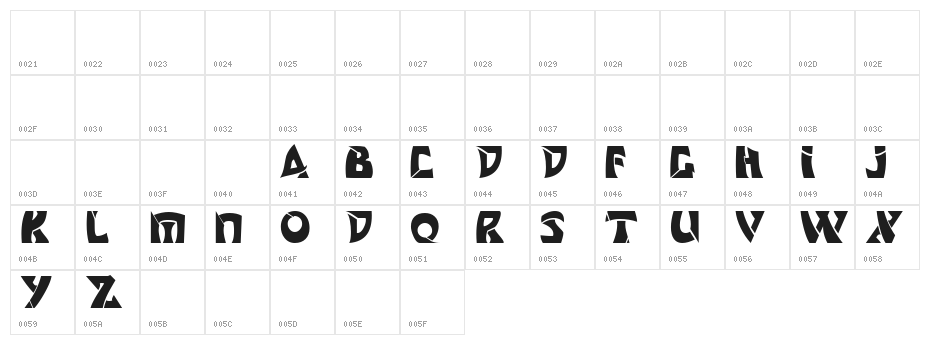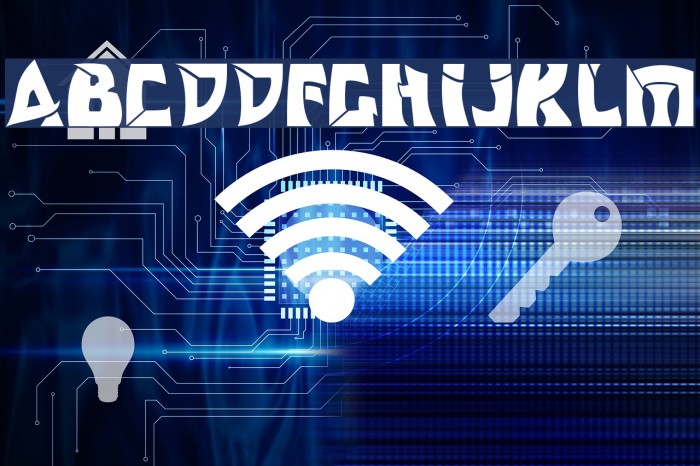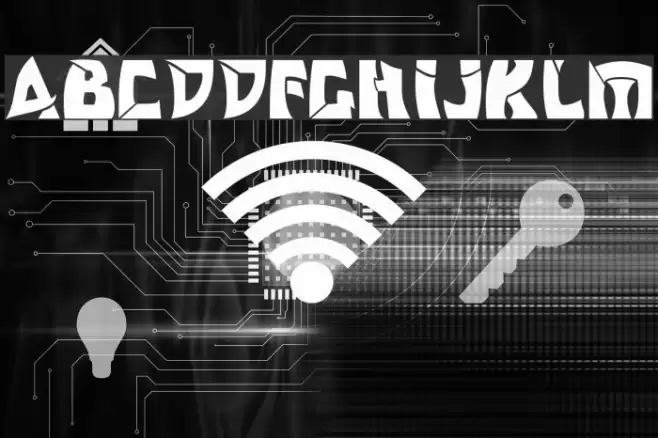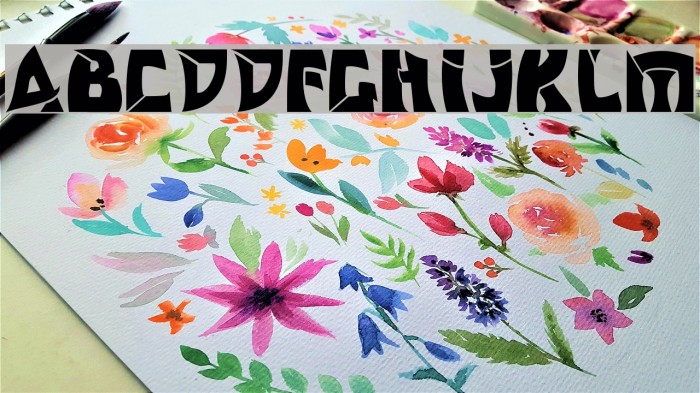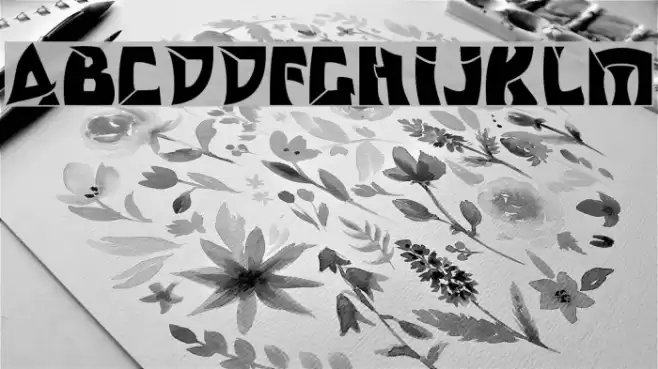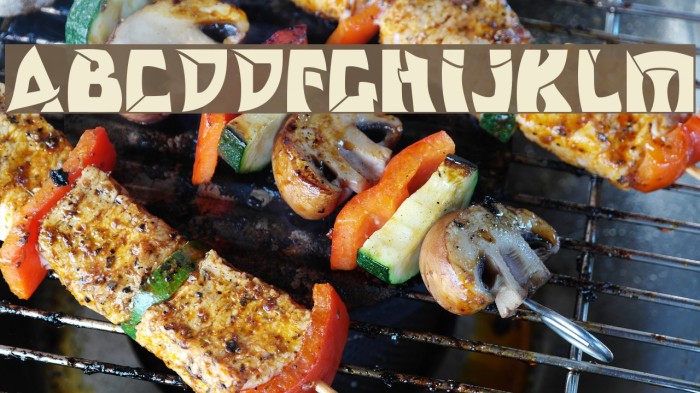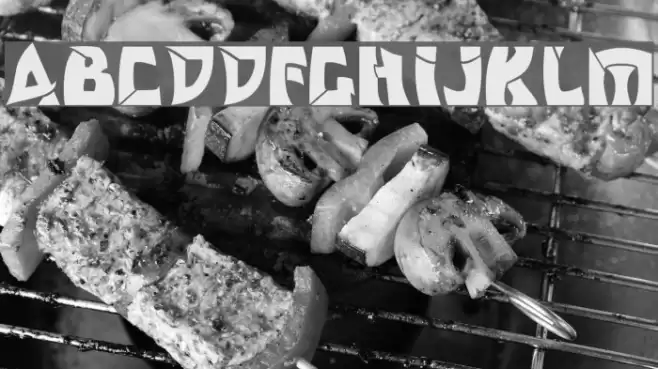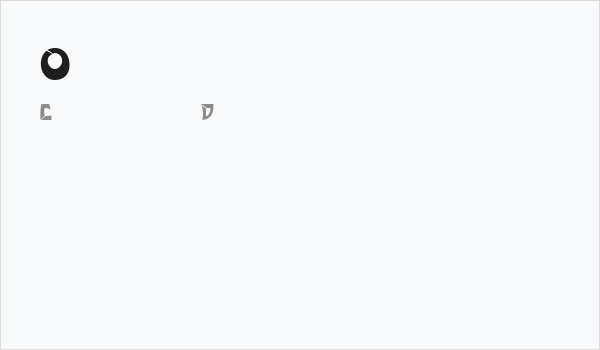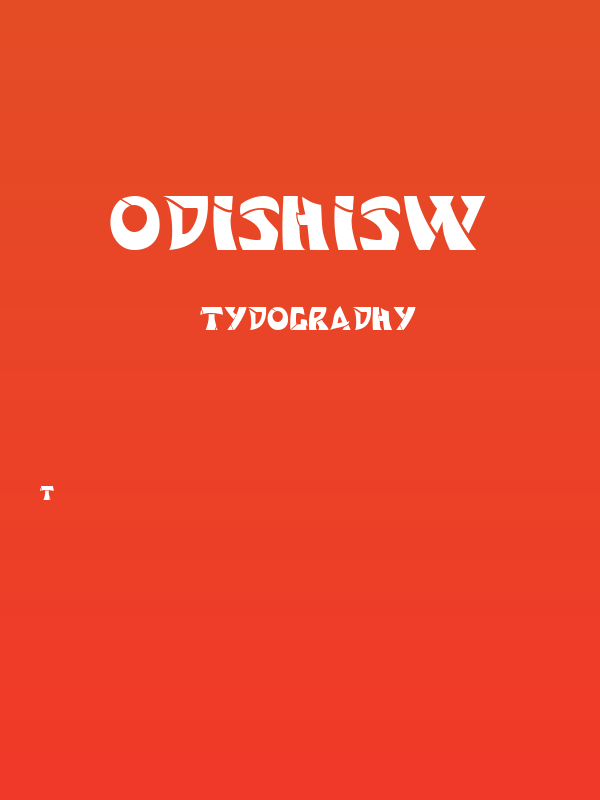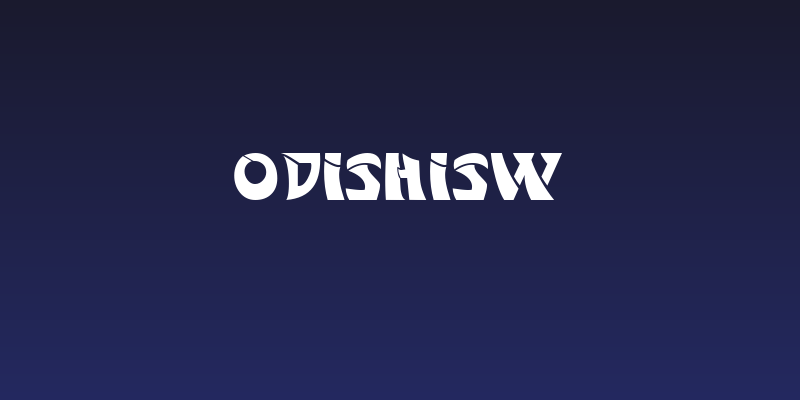
Odishisw Font
Odishisw Description
This font features a bold, angular design with sharp edges and geometric shapes. Each letter is crafted with a unique cut-out style, giving it a dynamic and aggressive appearance. The uppercase letters are particularly striking, with thick strokes and pointed terminals that create a sense of movement and energy. The font's overall aesthetic is modern and edgy, making it suitable for projects that require a strong visual impact. The design is consistent across all characters, maintaining a cohesive look that is both distinctive and memorable.
| Proposed Projects | Ideal for posters, album covers, video game titles, and branding that requires a bold statement. |